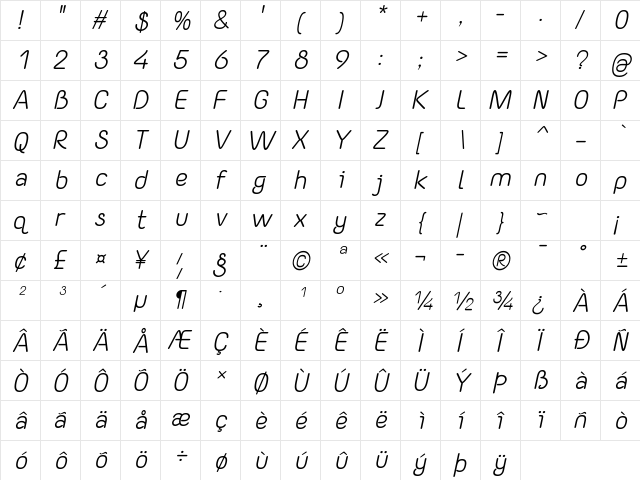
Yaahowu Italic Italic
Design Context for Yaahowu Italic Typeface
Yaahowu Italic is a composed and adaptable typeface that performs quietly and consistently across a wide range of design contexts. Its italic angle brings a sense of urgency and motion to the letterforms.
Pro Tip: Use Yaahowu Italic for emphasis, pull quotes, and subheadings where its slanted energy can add rhythm to the layout.